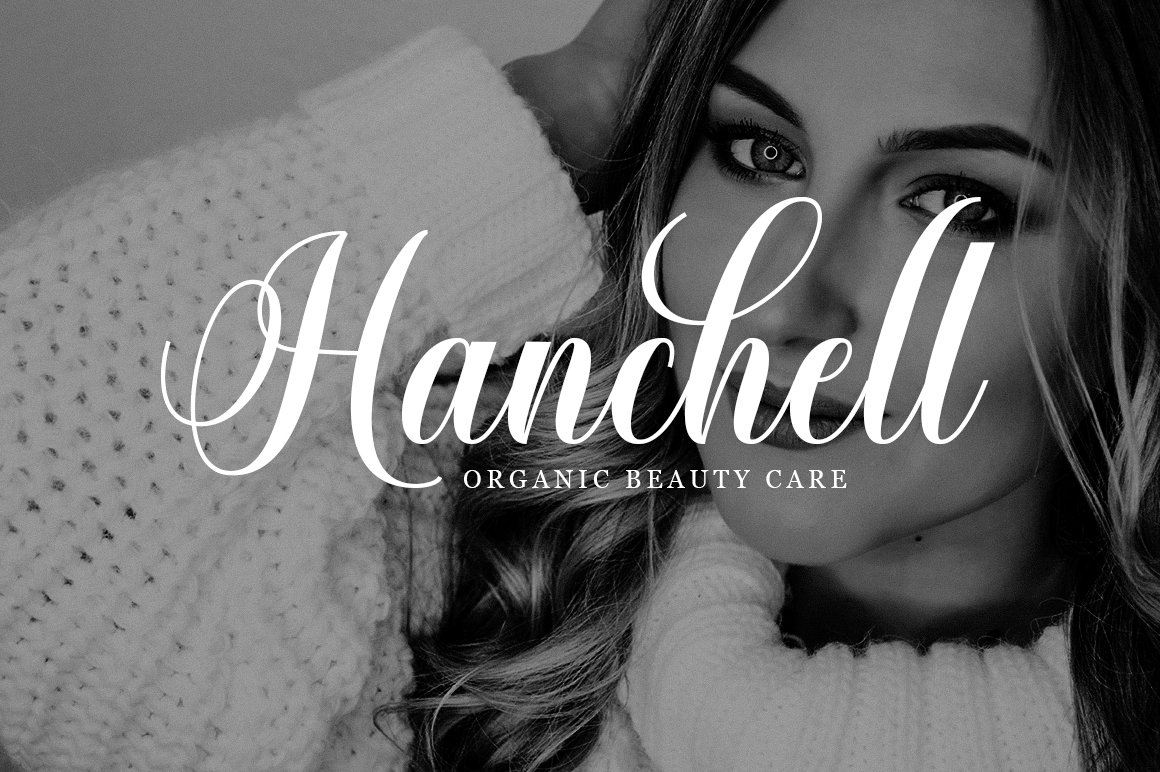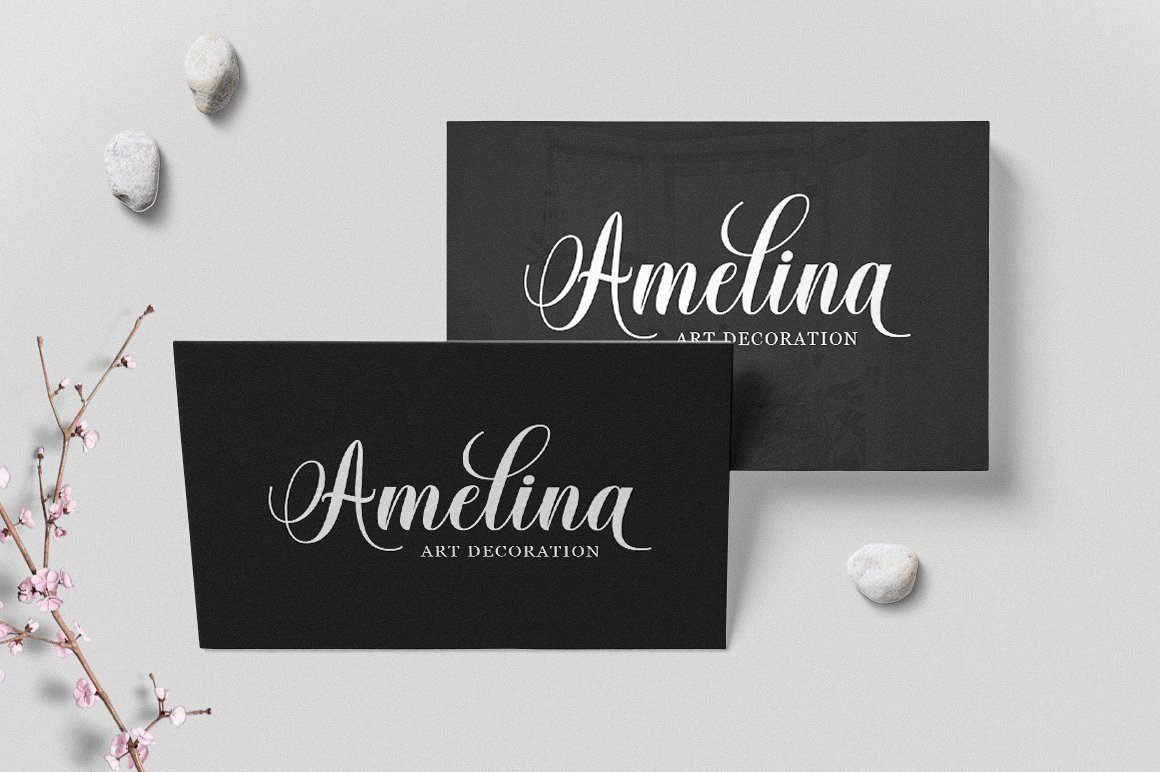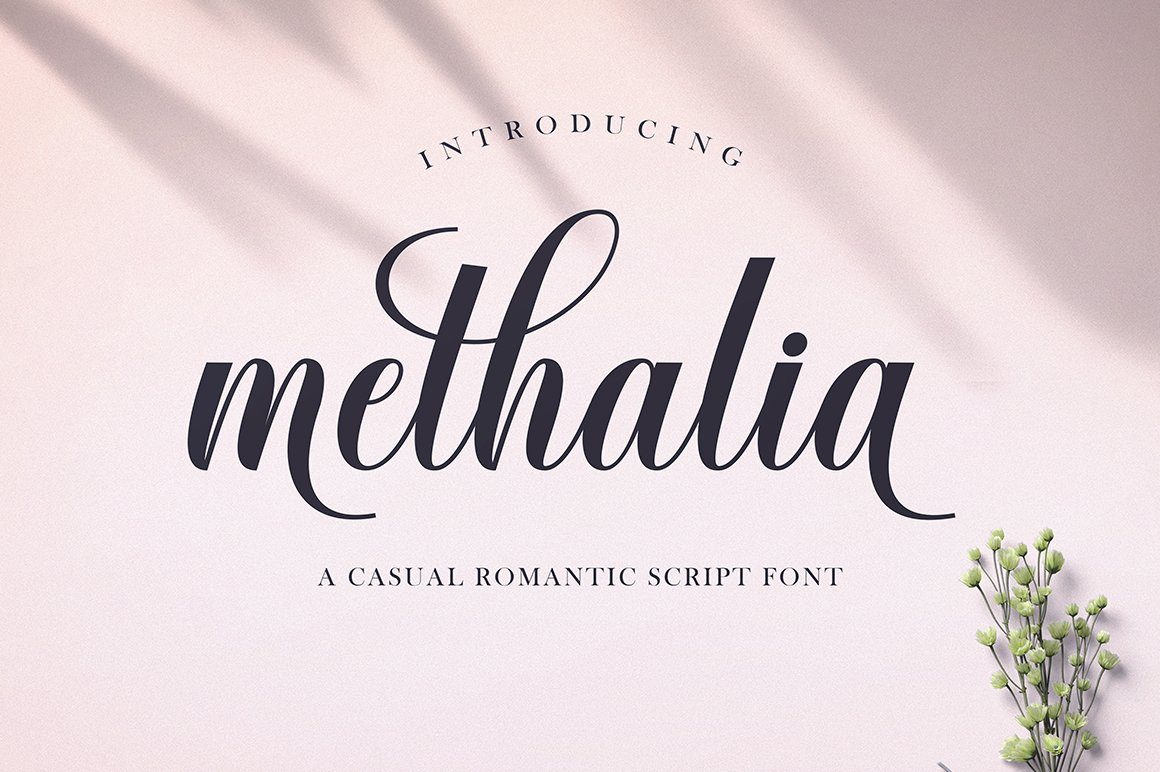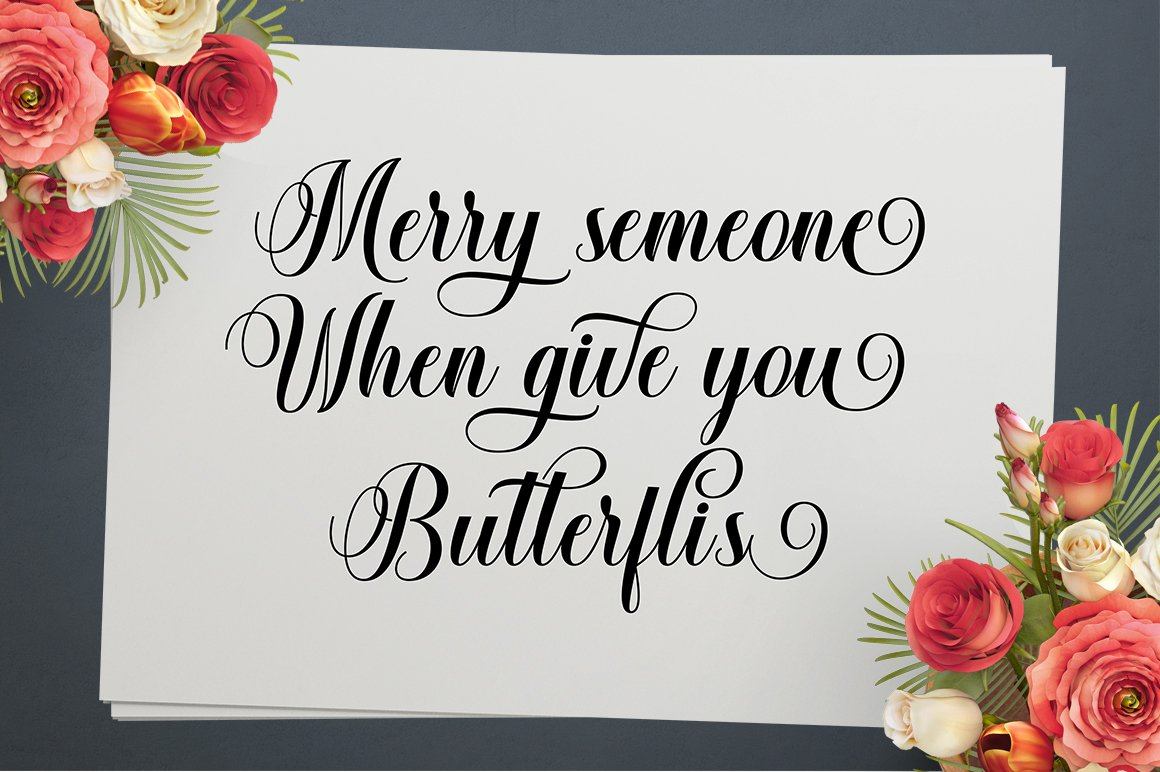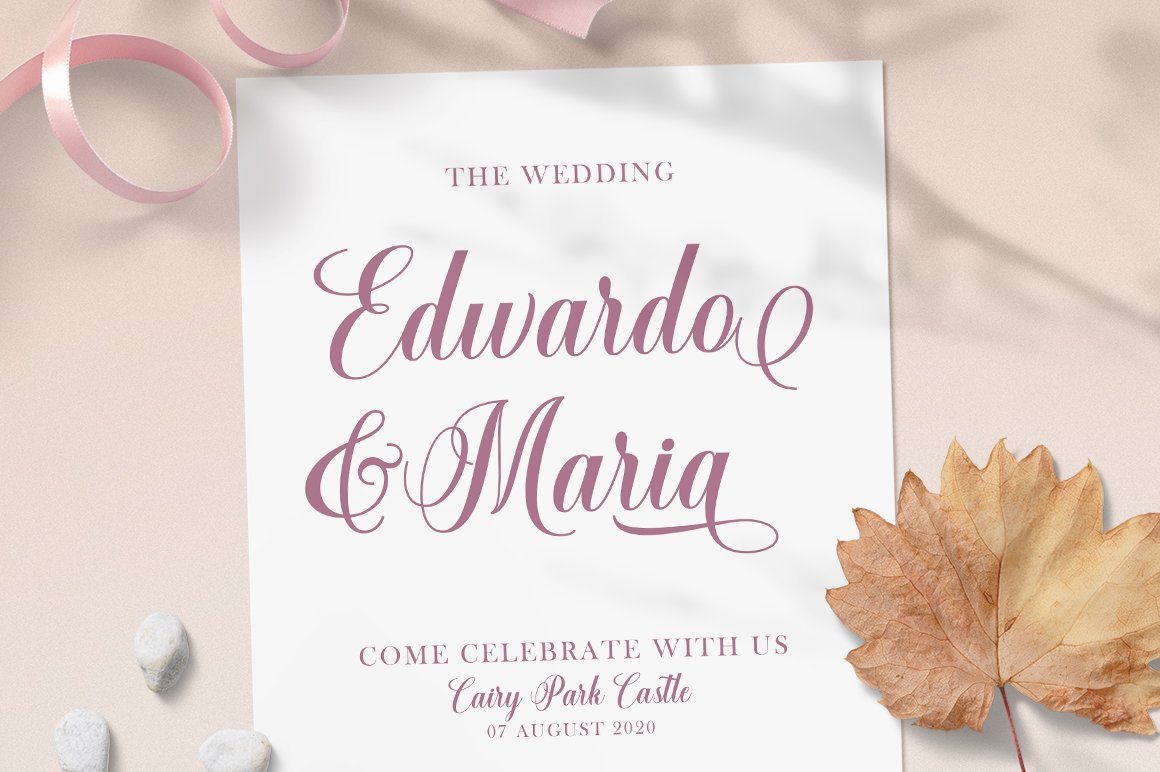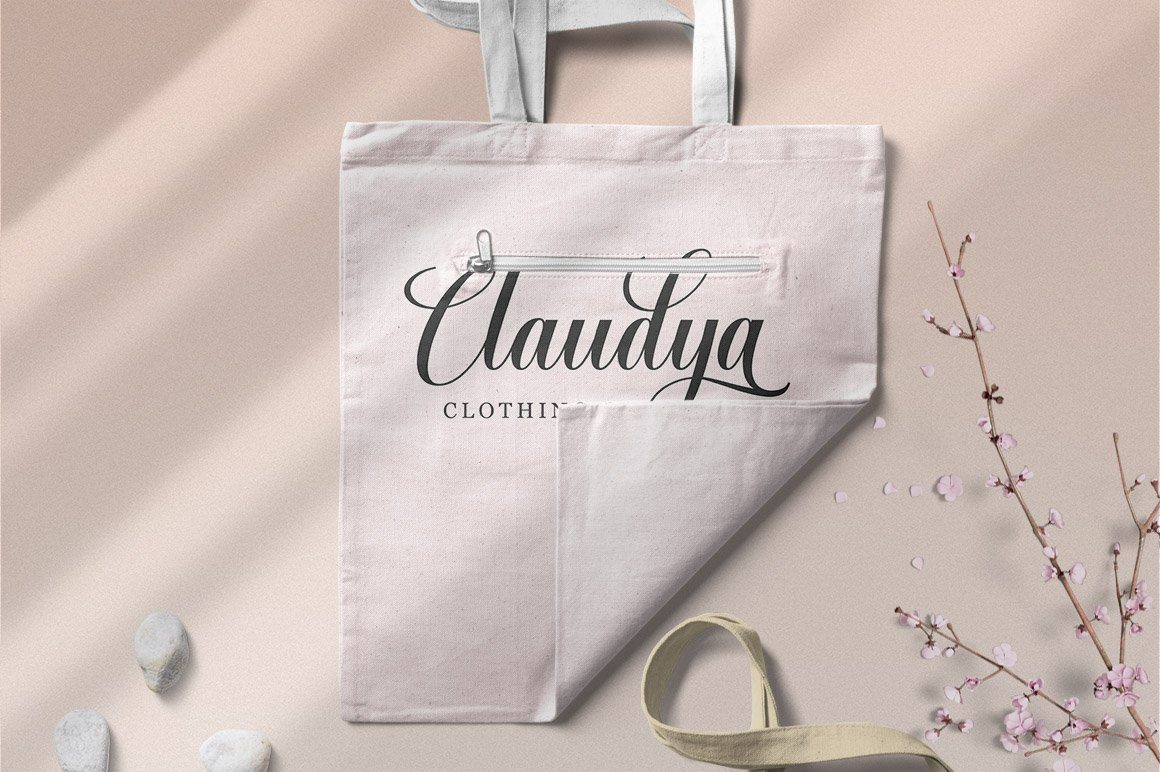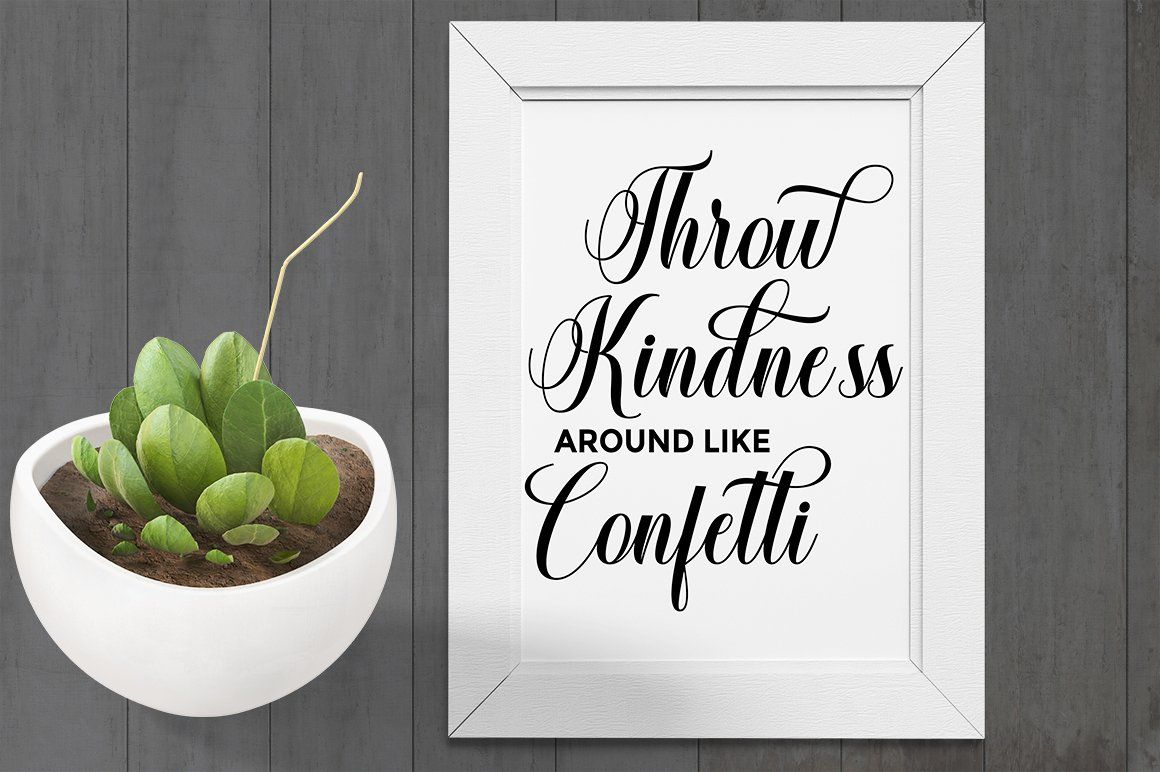
Methalia
About Methalia
methalia modern script typeface. Contains a complete set of lowercase, uppercase, alternative, ligatures, punctuation, numbers and multilingual support. Work in sync with methalia to create awesome calligraphic creations. You can use it for a variety of purposes: logos, wedding invitations, titles, signatures, t-shirts, letterheads, signage, labels, posters, etc. How to access all alternative characters, using the Windows Character Map with Photoshop: https://www.youtube.com/watch?v=Go9vacoYmBw How to access all alternative characters using Adobe Illustrator: https://www.youtube.com/watch?v=XzwjMkbB-wQ